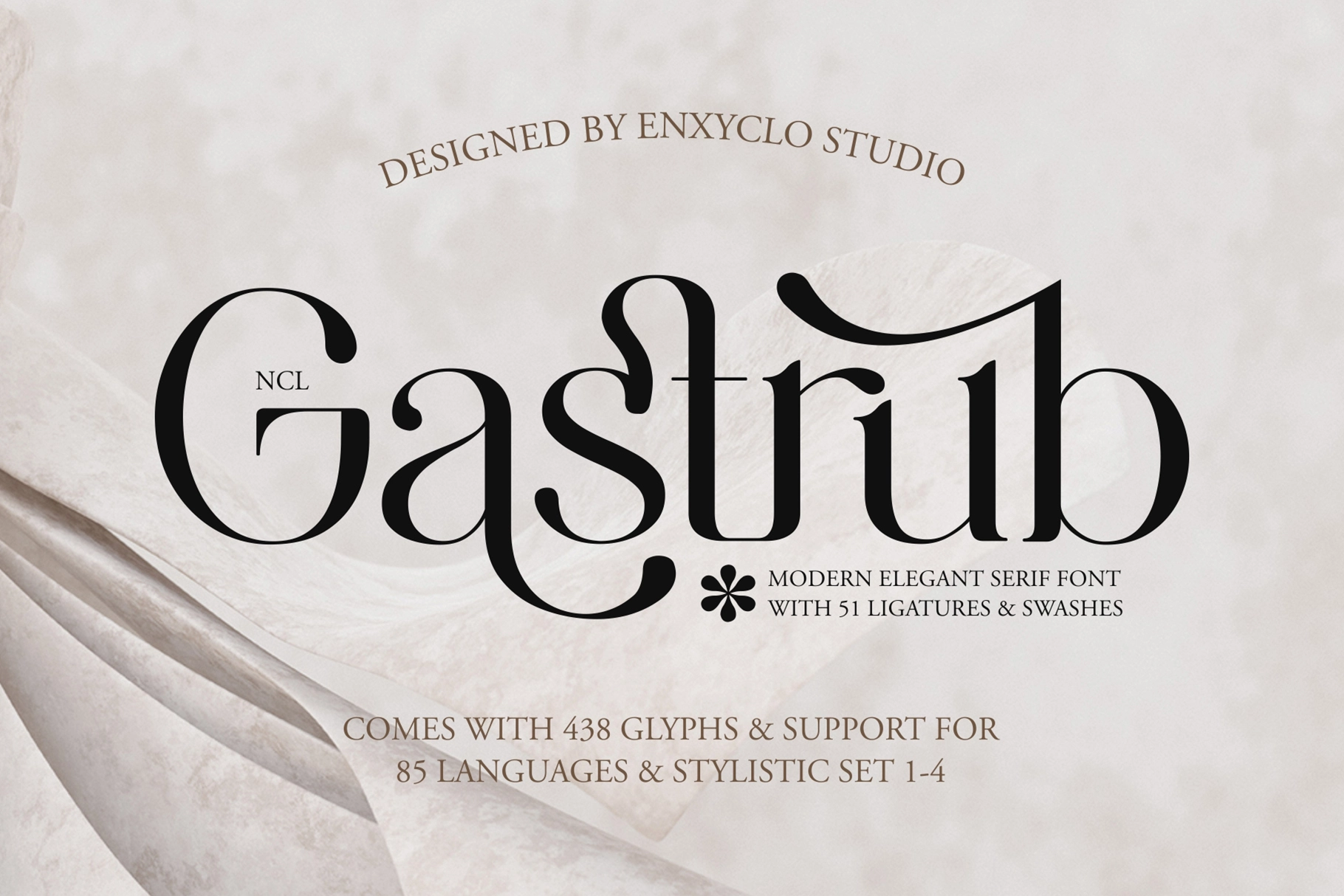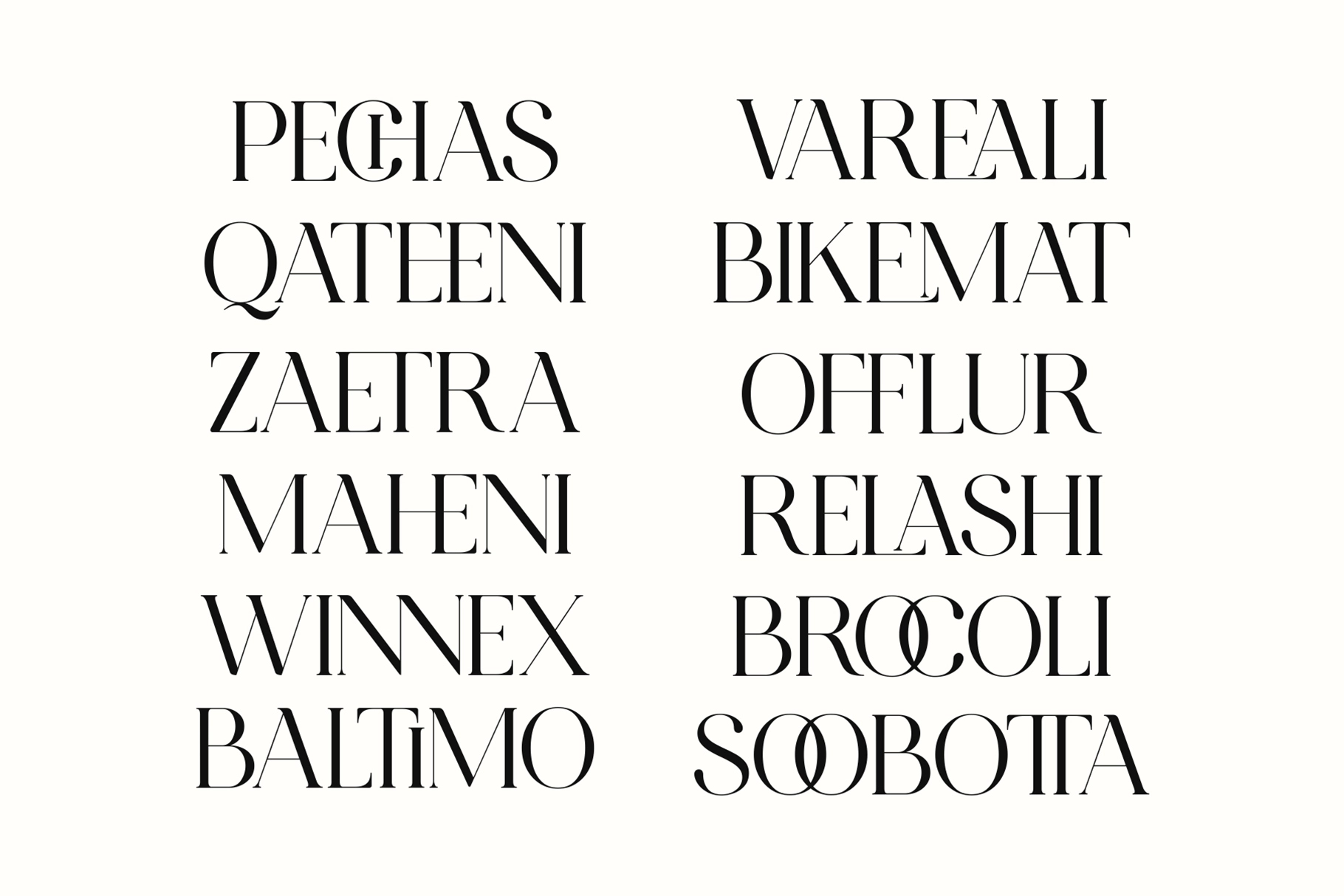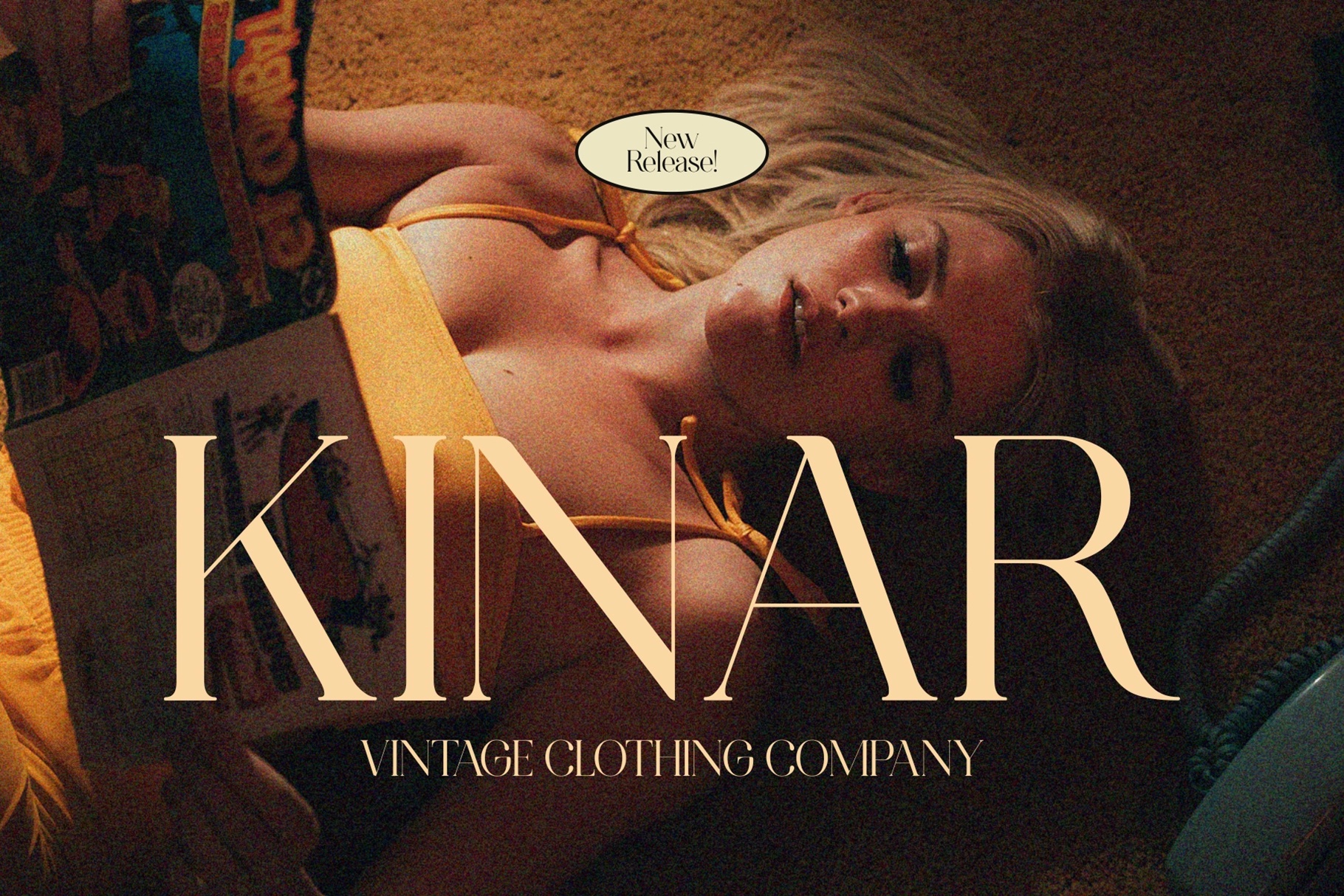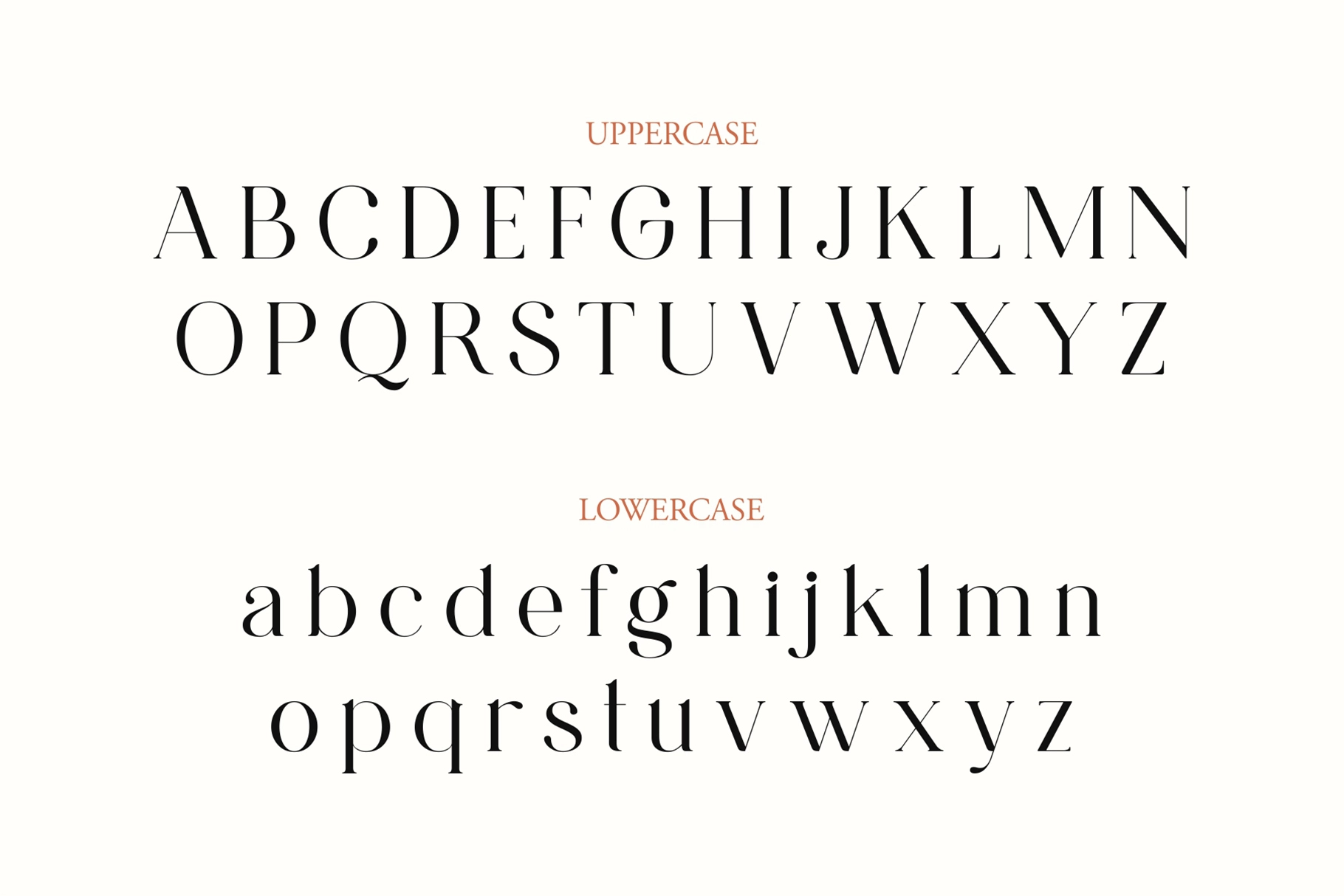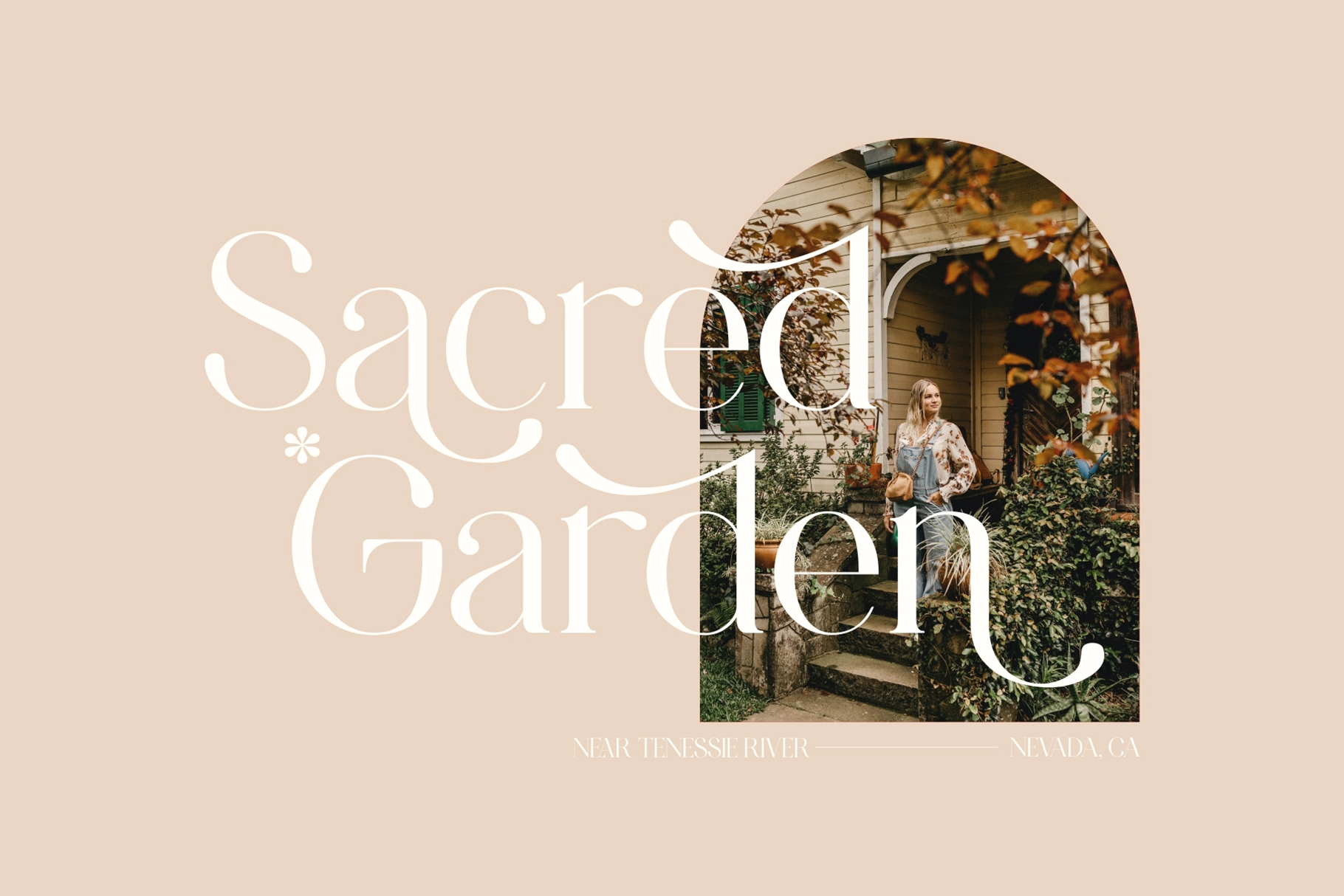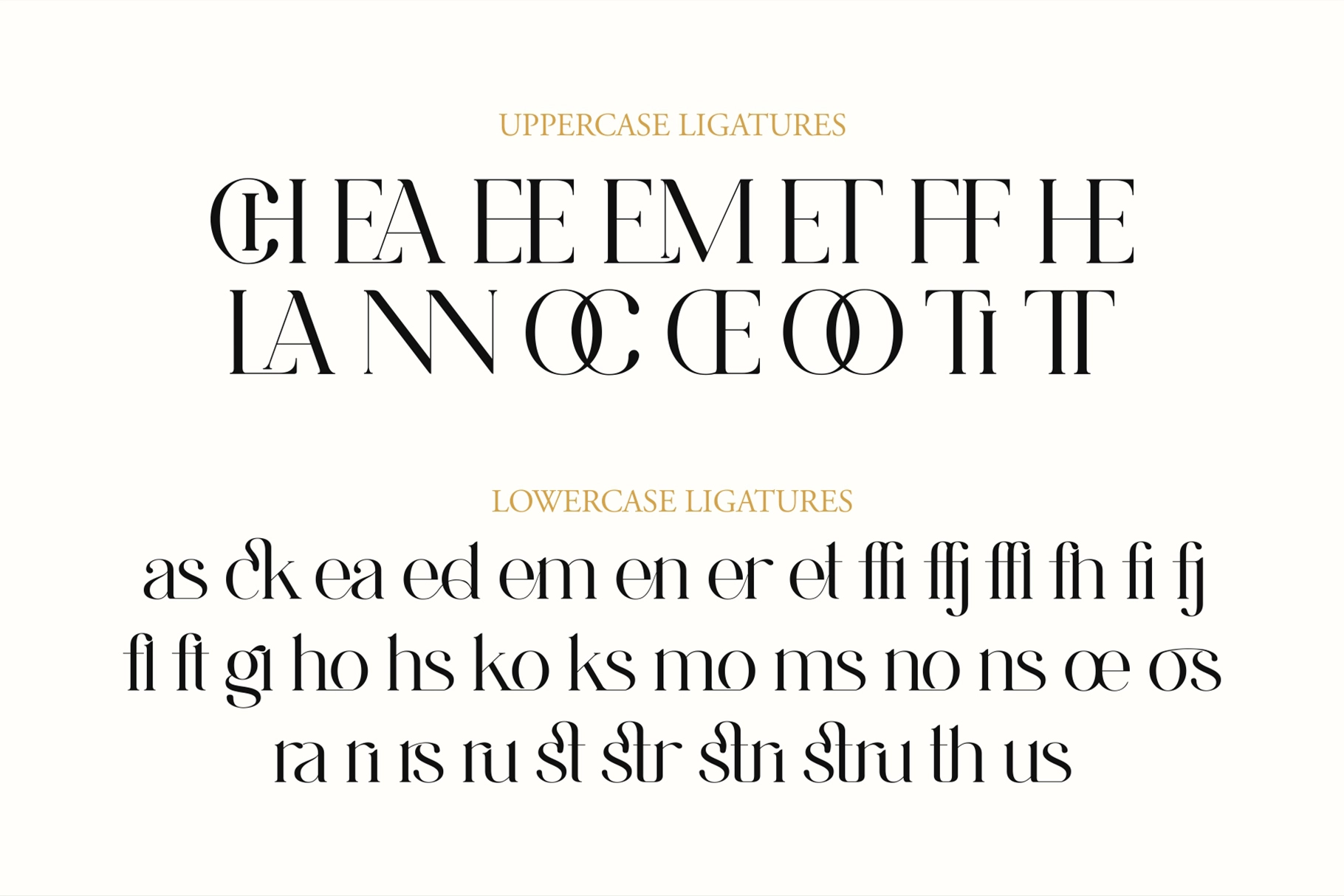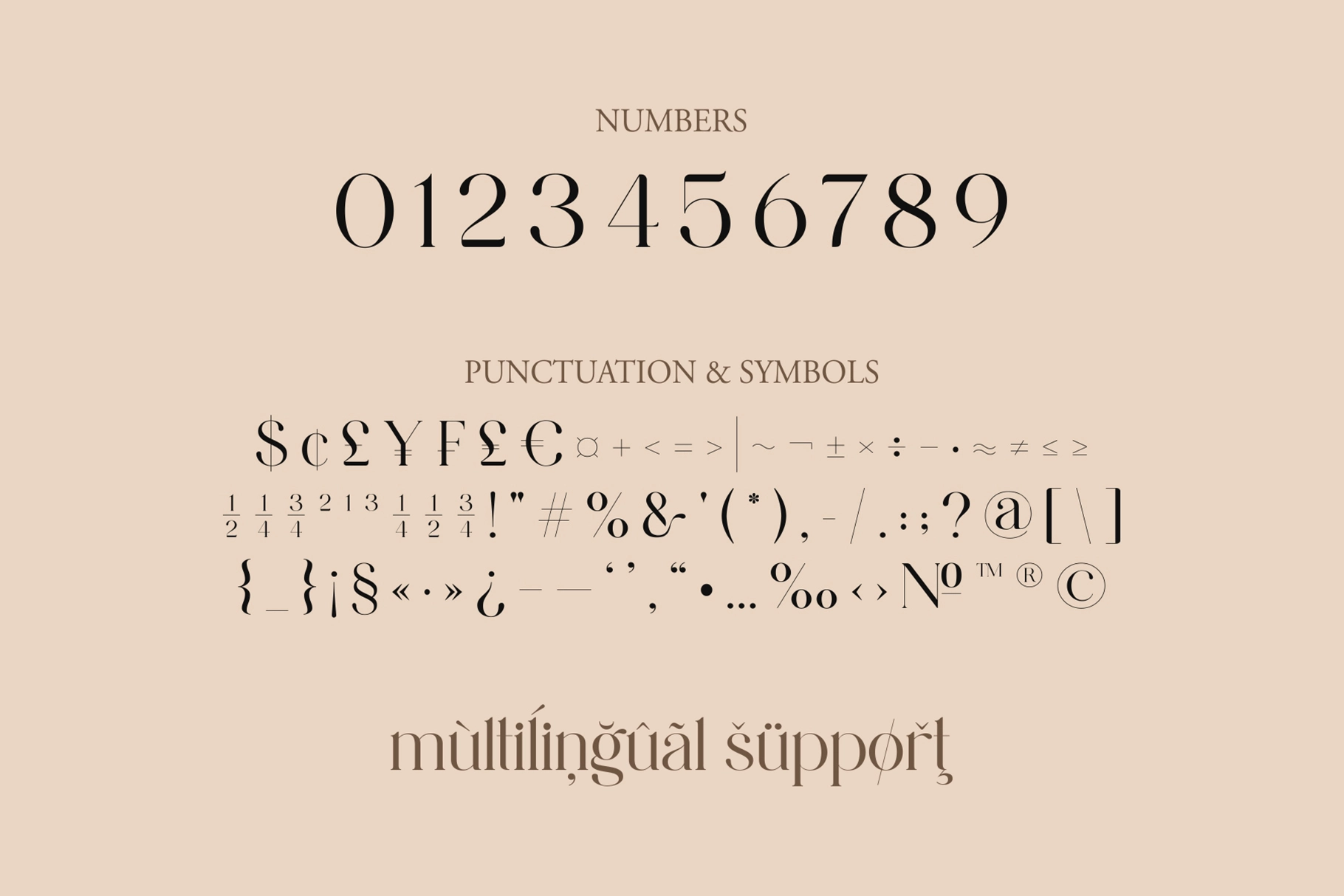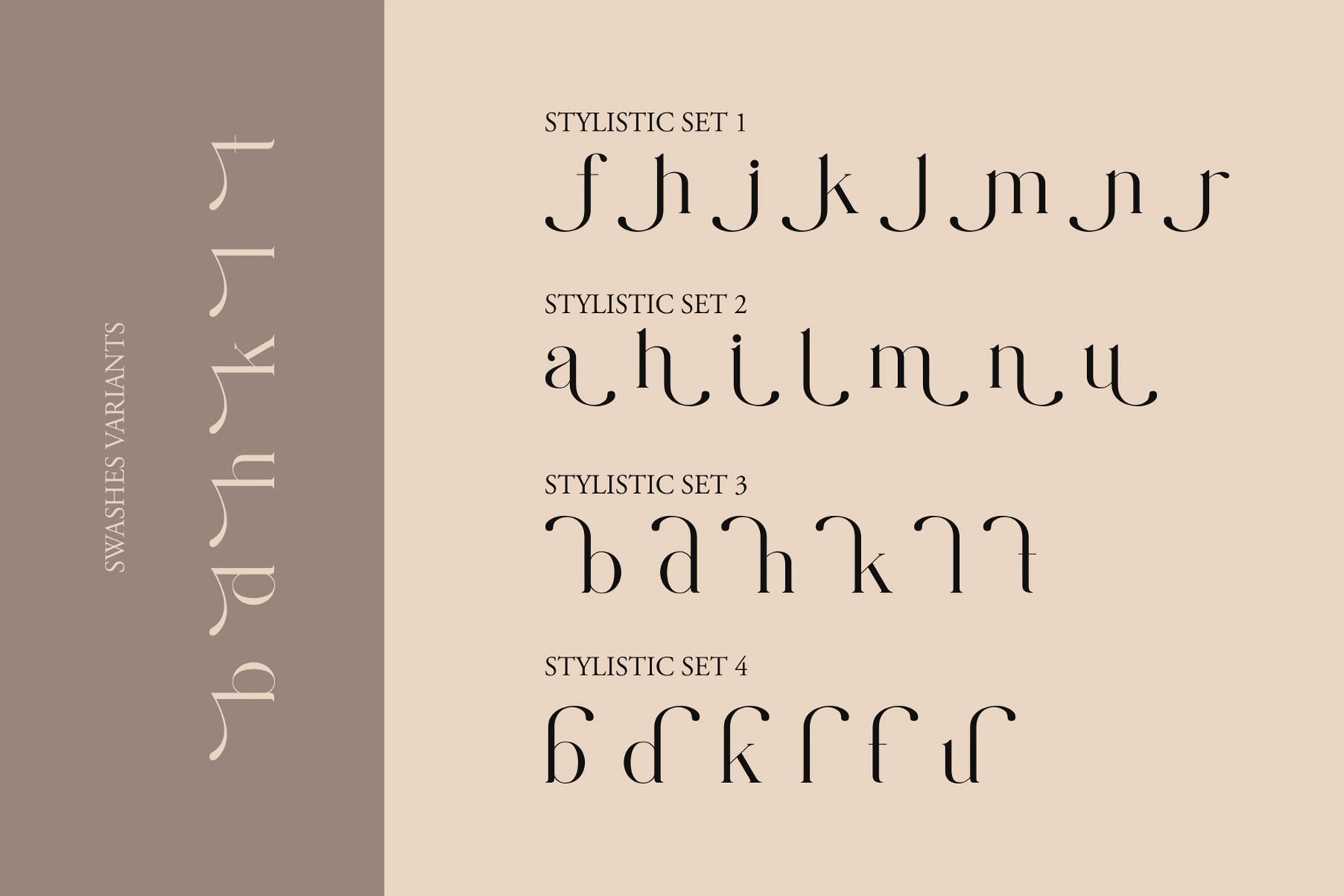
Gastrub - Modern Elegant Serif Font
Gastrub – Modern Elegant Serif Font is a sophisticated serif typeface designed to bring elegance and refinement to modern design. Featuring graceful letterforms, stylish ligatures, and decorative swashes, Gastrub blends classic serif tradition with contemporary aesthetics. The balanced proportions and elegant details create a luxurious visual character that works beautifully across branding, editorial layouts, and high-end visual identities.
Crafted for strong typographic impact, Gastrub performs exceptionally well in headlines, wedding designs, magazines, posters, logos, and modern branding systems. Its rich set of glyphs and stylistic alternates allows designers to build expressive and distinctive compositions while maintaining readability and elegance in both print and digital projects.
• 438 Glyphs
• Stylistic Set 1–4
• Ligatures & Swashes
• Uppercase & Lowercase Characters
• Numerals, Punctuation & Symbols
• Elegant Modern Serif Style